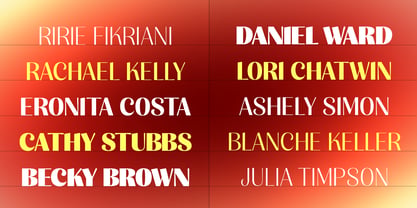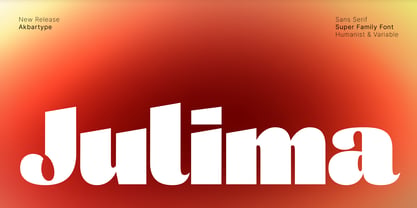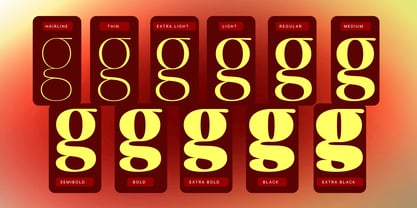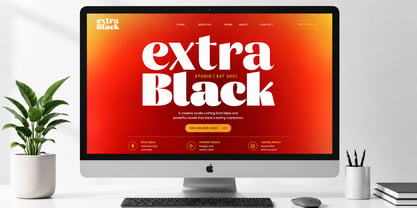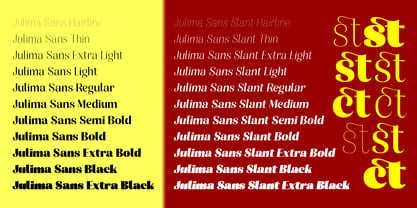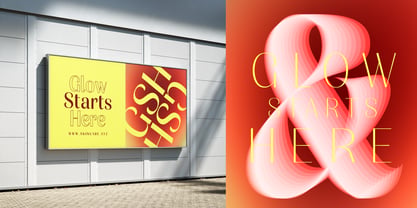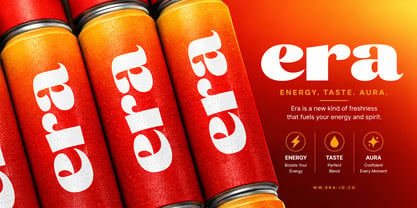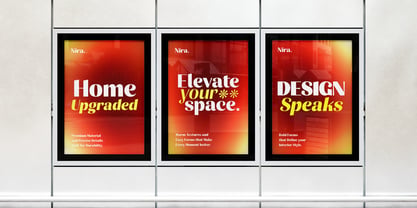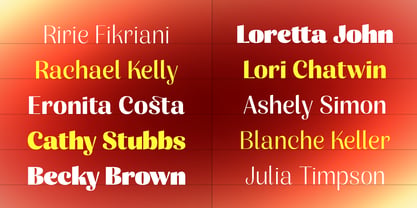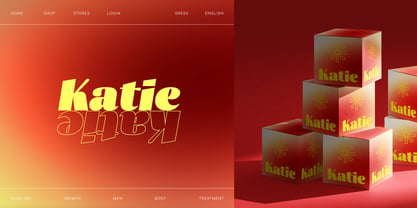
Julima
La familia tipográfica Julima fue diseñada por Azzura . y publicada por Akbartype. Julima contiene 318 estilos y opciones de paquete familiar. Más información sobre esta familia
Round
Hard
Julima is a contemporary display sans serif superfamily designed to deliver strong visual impact with exceptional flexibility. Built on a humanist foundation, it balances clean geometry with subtle organic touches, making it suitable for both bold headlines and expressive branding. This extensive type system spans a wide range of weights, from delicate Hairline to powerful Extra Black, paired with widths stretching from Extra Condensed to Extra Expanded. It also offers two distinct stylistic approaches—Hard for a sharper, more assertive tone, and Rounded for a softer, friendlier appearance. Each style is complemented by carefully crafted slanted, ensuring consistent rhythm and readability across dynamic layouts. In addition to its core styles, Julima includes an outline variant that adds versatility for layered typography, striking display compositions, and creative exploration. The complete package contains 316 styles along with 2 variable fonts, enabling precise control over weight and width in modern design workflows. With broad international language support, Julima is built for global use—ideal for editorial design, branding systems, digital interfaces, and large-scale visual communication.